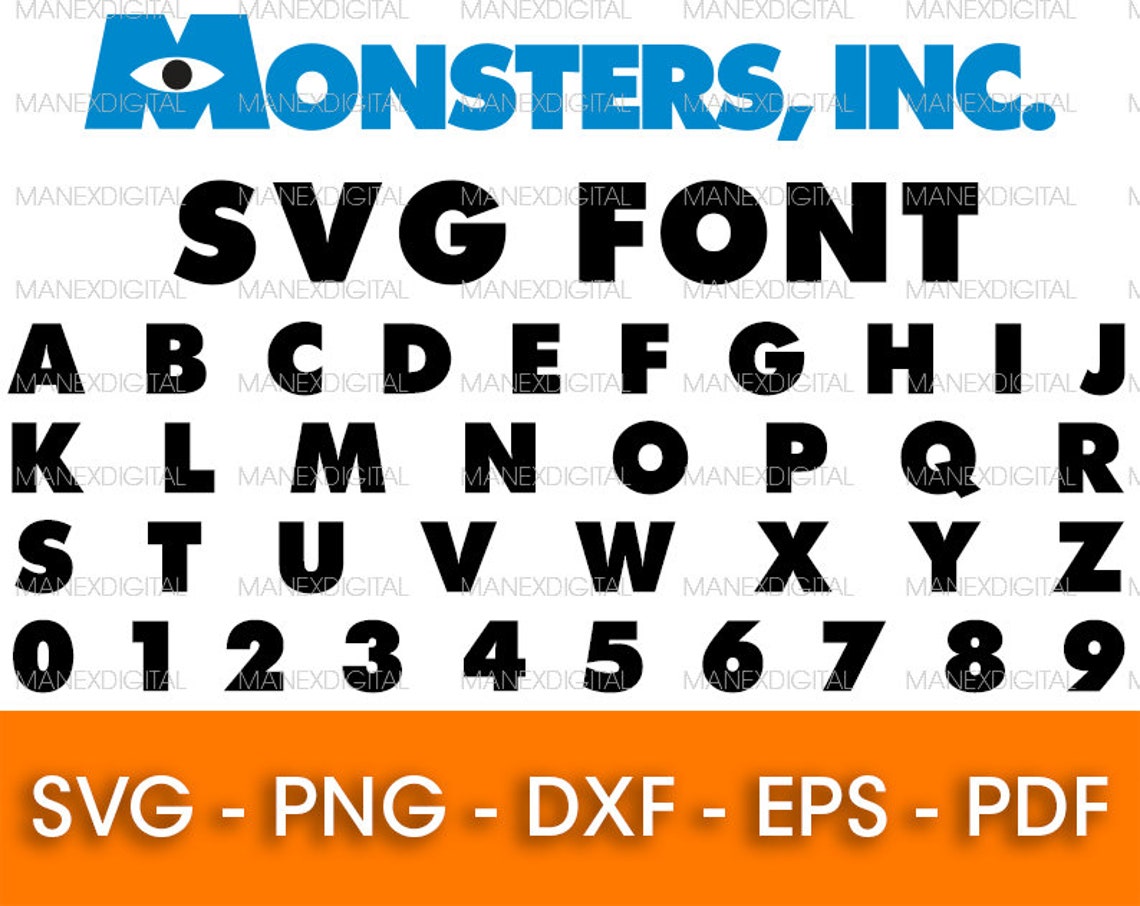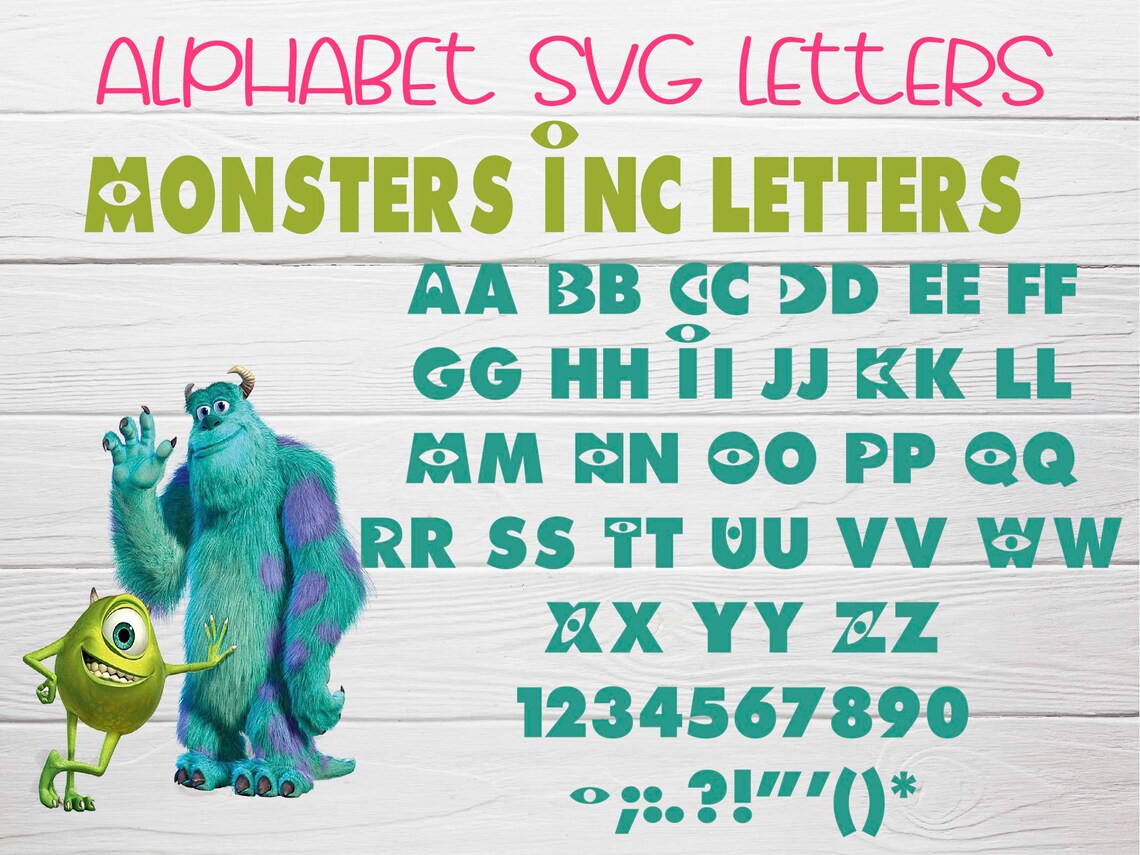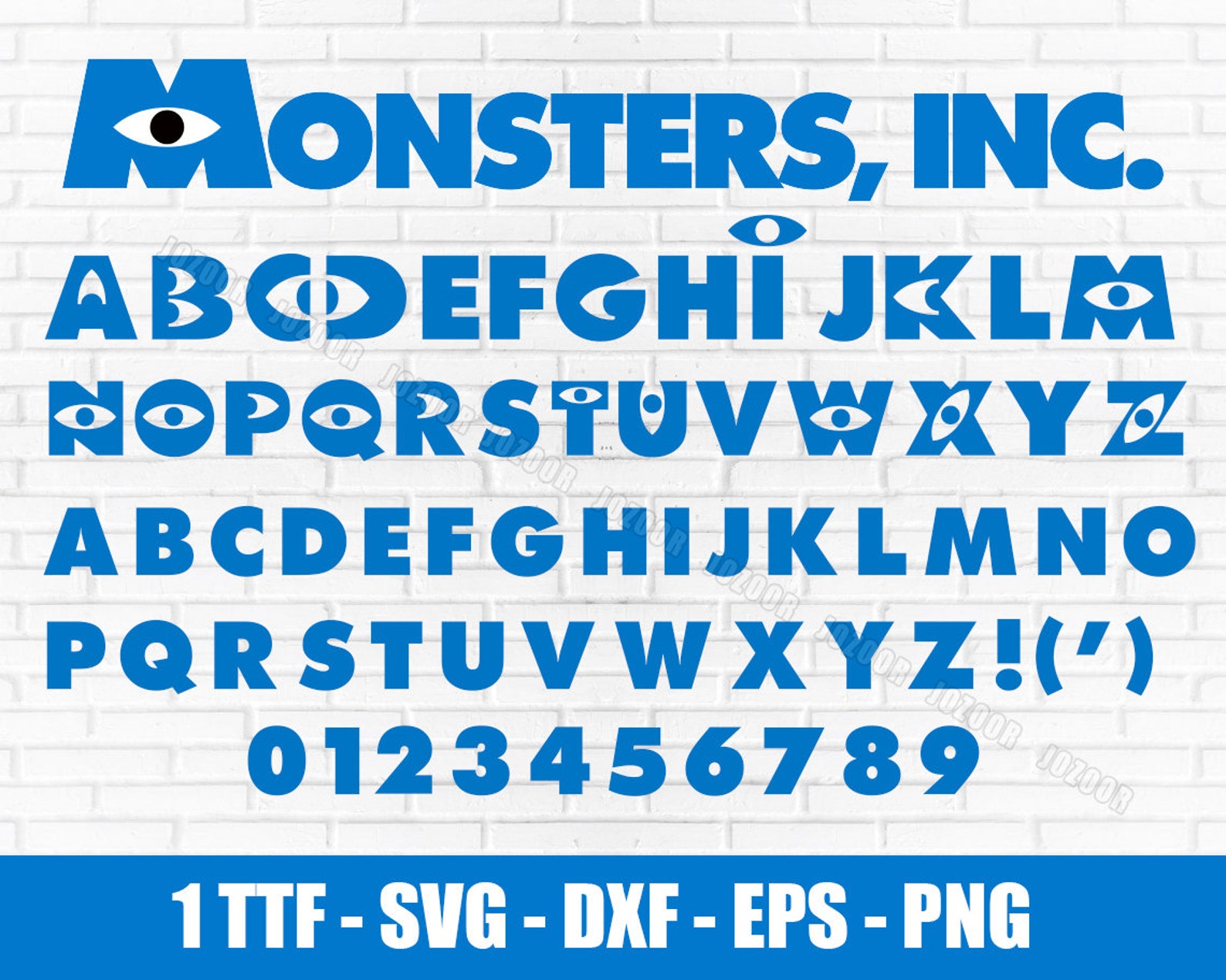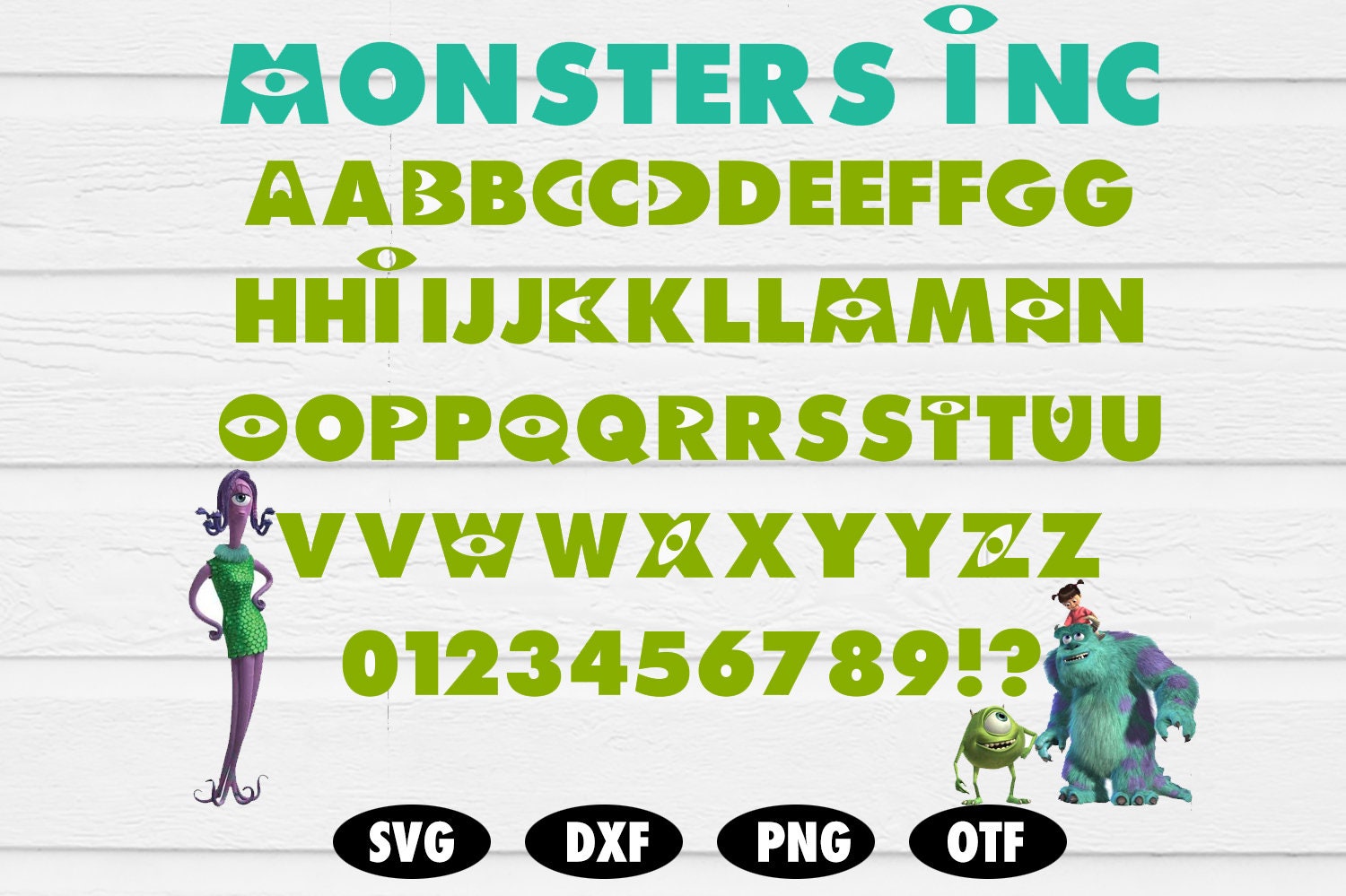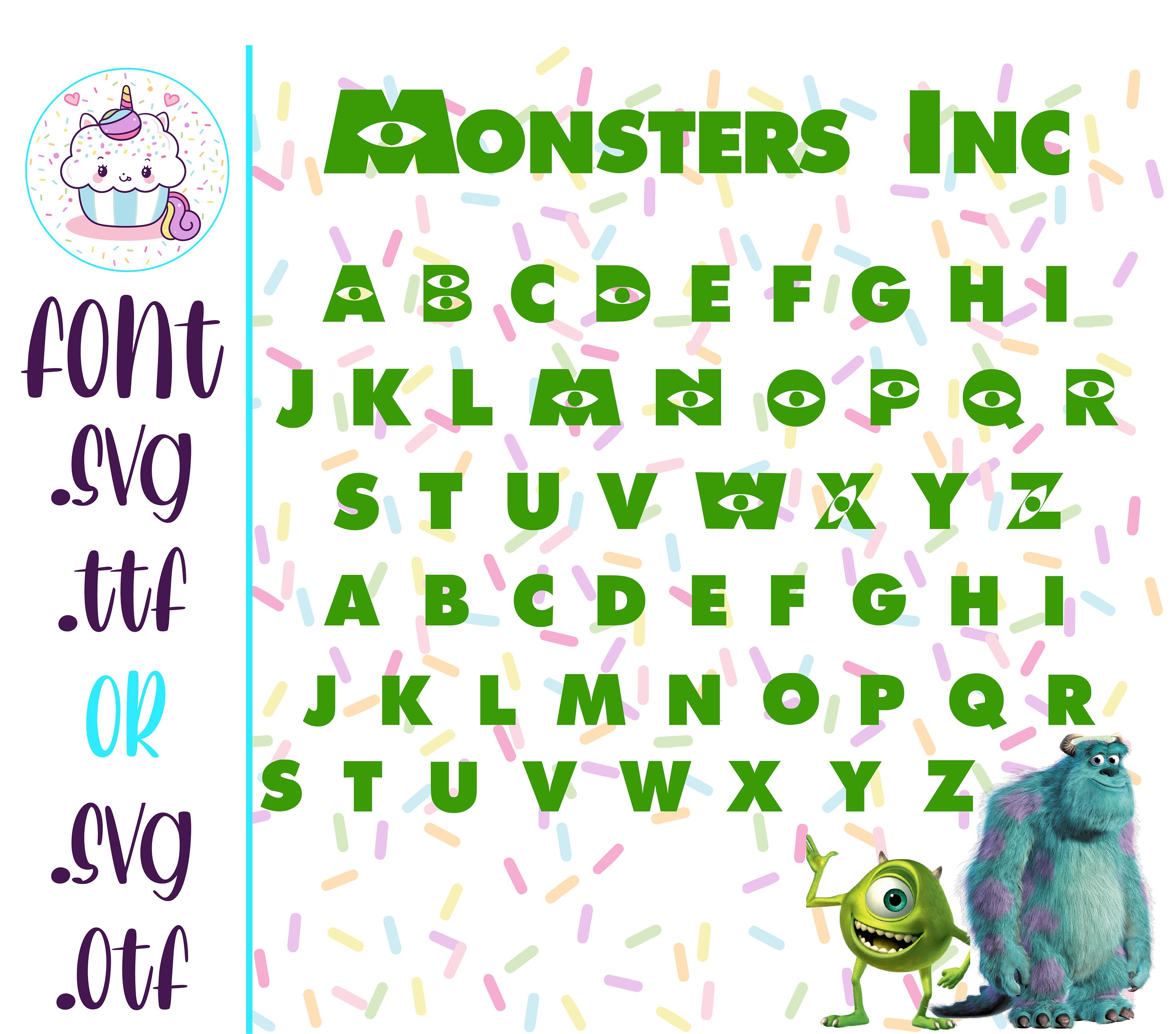
Monsters Inc Font
It’s an american animated film that. The monsters inc fon t is a logo font that we have seen for the first time in monsters inc. Create text graphics with monsters inc font. Use the text generator below to convert your text into graphics online with monsters inc. Size monster ag by filmhimmel.
Create Text Graphics With Monsters Inc Font.
Web free download of monsters inc font. It’s an american animated film that. Use the text generator below to convert your text into graphics online with monsters inc. Every font is free to download!
The Monsters Inc Fon T Is A Logo Font That We Have Seen For The First Time In Monsters Inc.